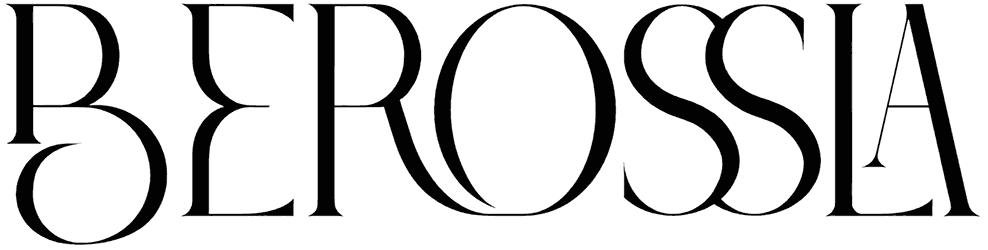
Berossla Font
By combining retro and digital fonts, Berossla has created a modern typography that easily fits into the 21st century and maintains the old vibe.
Instead of putting small letters, the designer of this font has offered two different suggestions for capital letters, which depict beautiful artistic talents and can add a lot of personality to your writing when combined. So if you need an authentic and classic feel in your texts, use this elegant luxury font in posters and advertisements.